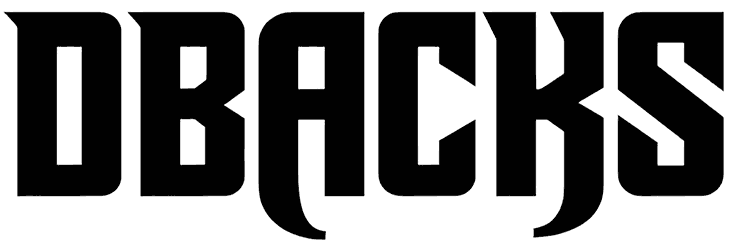
Quake + DpQuake Font
Quake DpQuake Font
Quake + DpQuake is a sophisticated gothic font with a playful fading effect applied to its sharp characters. It includes a bold and larger set of elements for uppercase letters and another set of the exact same characters for the lowercase but in a smaller size.
Considering its expressive and attention-seeking nature, you don’t want to use this satanic font for body copy while it makes such a perfect match for headlines, banners, especially logos and signage, etc.
Designed by: Dead Pete